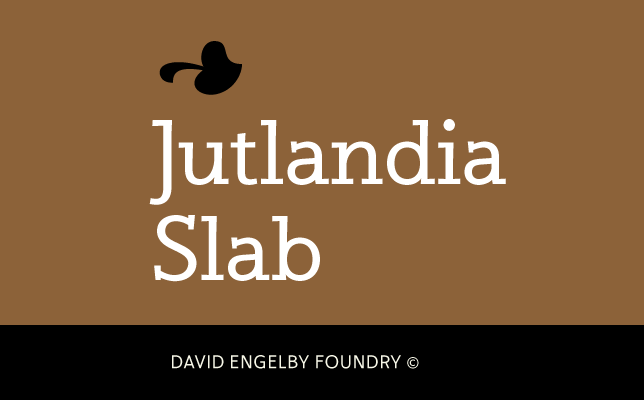
Jutlandia Slab Font Family
Introducing Jutlandia! It is designed by David Engelby Foundry, this is a premium font, are sold on myfonts, but it was great, it is free today for download. Jutlandia Slab is made for straightforward and functional typographic design. Its design is rooted in clarity and legibility which is the slab serif tradition. The unpretentious, yet sturdy and functional visual expression of the regular form, and the subtle bold and italic forms is an homage to Jutland – the Cimbrian Peninsula of Denmark and he birthplace.